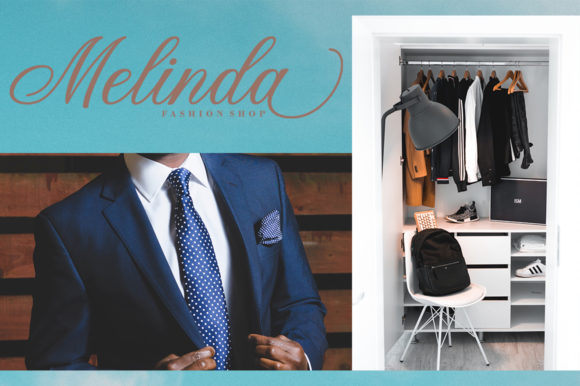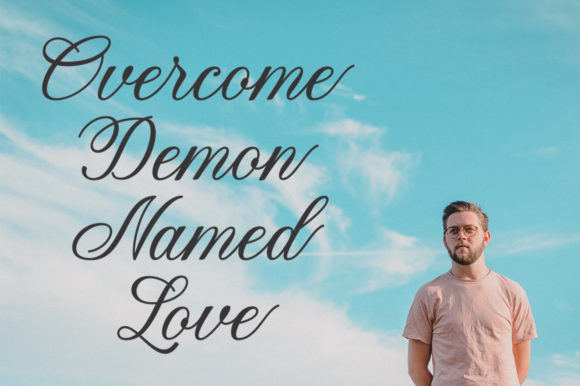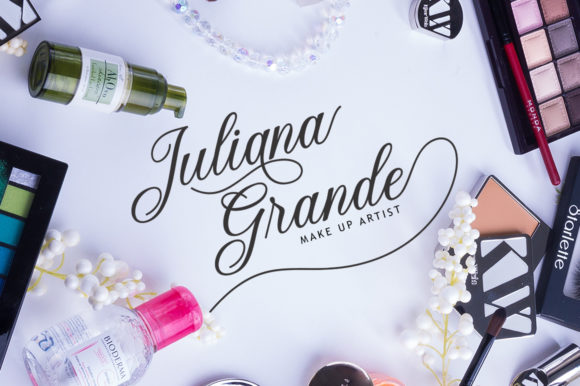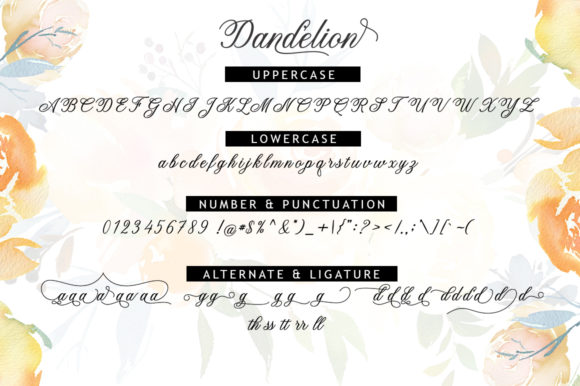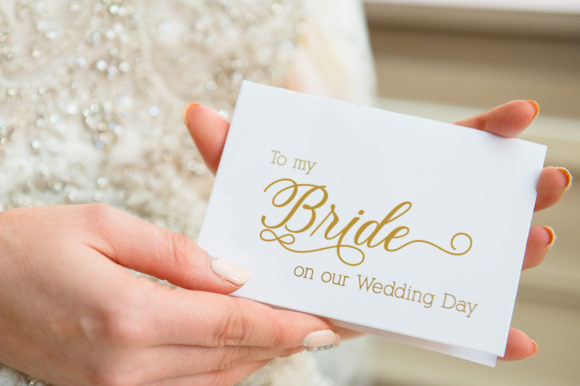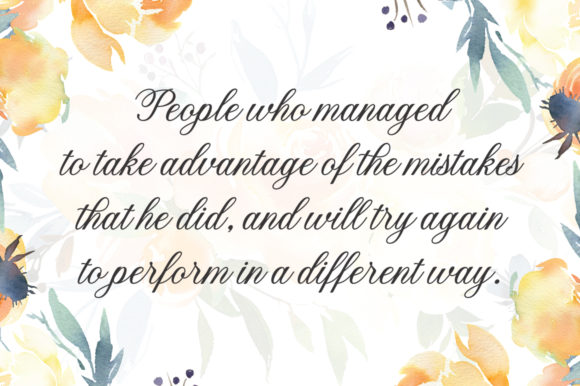
Dandelion Script Font: Elevate Your Designs with Elegance and Whimsy
Are you a designer or crafter looking for a font that embodies elegance, femininity, and friendliness? Look no further than the Dandelion Script Font. This beautiful calligraphy font is perfect for adding a touch of sophistication and whimsy to your designs. In this article, we’ll explore the features and uses of the Dandelion Script Font, and why it’s a must-have for any creative looking to elevate their work.
The Dandelion Script Font: A Beautiful Calligraphy Font
The Dandelion Script Font is a stunning calligraphy font that boasts casual swashes, making it slender, feminine, and friendly. Its elegant strokes and flowing curves give it a sophisticated look that’s perfect for a variety of design applications. Whether you’re creating logos, product packaging, wedding invitations, or branding materials, the Dandelion Script Font is sure to make a lasting impression.
Key Features of the Dandelion Script Font
- Elegant Calligraphy: The Dandelion Script Font features beautiful, flowing calligraphy that’s perfect for adding a touch of sophistication to your designs.
- Casual Swashes: The font’s casual swashes give it a friendly, approachable feel that’s perfect for designs that need a personal touch.
- Feminine and Slender: The Dandelion Script Font’s slender, feminine strokes make it perfect for designs that require a delicate touch.
- Versatile: The font can be used for a wide range of design applications, from logos and product packaging to wedding invitations and branding materials.
Uses for the Dandelion Script Font
The Dandelion Script Font is incredibly versatile, and can be used for a wide range of design applications. Here are just a few ideas to get you started:
- Logos: Create a beautiful, elegant logo for your business or brand with the Dandelion Script Font.
- Product Packaging: Add a touch of sophistication to your product packaging with this stunning calligraphy font.
- Wedding Invitations: Make your wedding invitations truly special with the Dandelion Script Font’s elegant, flowing curves.
- Branding: Use the Dandelion Script Font to create a cohesive brand identity that’s both elegant and approachable.
- Headlines: Add a touch of whimsy to your headlines with the Dandelion Script Font’s casual swashes.
- Signage: Create eye-catching signage with the Dandelion Script Font’s bold, elegant strokes.
- Labels: Add a personal touch to your labels with this beautiful calligraphy font.
- Signatures: Use the Dandelion Script Font to create a unique, elegant signature that’s sure to make a lasting impression.
- Book Covers: Create a stunning book cover with the Dandelion Script Font’s flowing curves and elegant strokes.
- Posters: Add a touch of sophistication to your posters with this beautiful calligraphy font.
- Quotes: Make your quotes truly special with the Dandelion Script Font’s elegant, whimsical touch.
Why Choose the Dandelion Script Font?
So why choose the Dandelion Script Font for your design projects? Here are just a few reasons why this font stands out:
- Unique and Elegant: The Dandelion Script Font is a truly unique and elegant font that’s sure to make your designs stand out.
- Versatile: The font can be used for a wide range of design applications, making it a great addition to any designer’s toolkit.
- Easy to Read: Despite its elegant, flowing curves, the Dandelion Script Font is easy to read, making it perfect for designs that require a clear message.
- Friendly and Approachable: The font’s casual swashes give it a friendly, approachable feel that’s perfect for designs that need a personal touch.
| Font Name | Dandelion Script Font |
| Author | supotype |
In conclusion, the Dandelion Script Font is a beautiful, elegant calligraphy font that’s perfect for designers and crafters looking to add a touch of sophistication and whimsy to their designs. With its casual swashes, slender strokes, and flowing curves, this font is sure to make a lasting impression. Whether you’re creating logos, product packaging, wedding invitations, or branding materials, the Dandelion Script Font is a must-have for any creative looking to elevate their work.